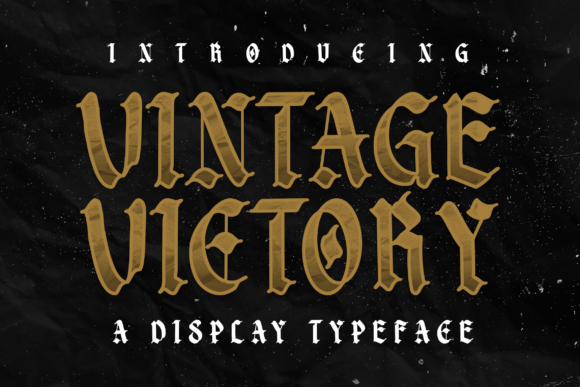
Immerse yourself in the captivating world of Vintage Victory, a gothic blackletter font that exudes an air of medieval charm and timeless elegance. With its intricate letterforms and striking visual presence, this font is the perfect choice for those seeking a distinctive and memorable typographic experience.
Designed by the talented Dansdesign, Vintage Victory draws inspiration from the rich history of blackletter fonts, capturing the essence of ancient manuscripts and heraldic crests. Its bold and commanding strokes create a sense of timeless sophistication, while its intricate details add a touch of playfulness and whimsy.
Whether you're a graphic designer, a tattoo artist, or simply a creative enthusiast, Vintage Victory offers endless possibilities to unleash your imagination. Use it to create stunning logos, eye-catching posters, unique branding materials, or even custom tattoos that tell a captivating story.
With its versatility and timeless appeal, Vintage Victory is the perfect choice for those seeking a font that stands out from the crowd. Its bold and assertive presence demands attention, while its intricate details add a touch of intrigue and allure.
So, dive into the world of Vintage Victory and let your creativity soar. Embrace the captivating beauty of this gothic blackletter font and watch as your projects transform into works of art.
**Unleash the Power of Vintage Victory:**
* Embark on a journey through time as you explore the captivating world of Vintage Victory.
* Let your imagination run wild as you create stunning logos, eye-catching posters, unique branding materials, and custom tattoos.
* Make a statement with every design, ensuring that your projects stand out from the crowd.
* Experience the thrill of bringing your creative vision to life with a font that is both timeless and captivating.
* Join a community of creative enthusiasts who appreciate the beauty and versatility of Vintage Victory.